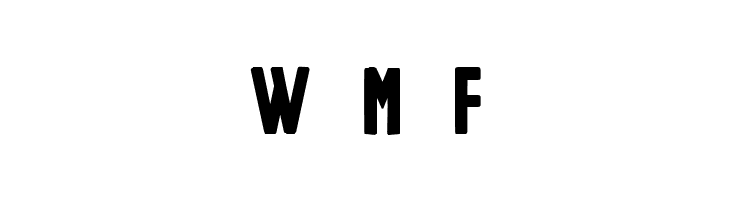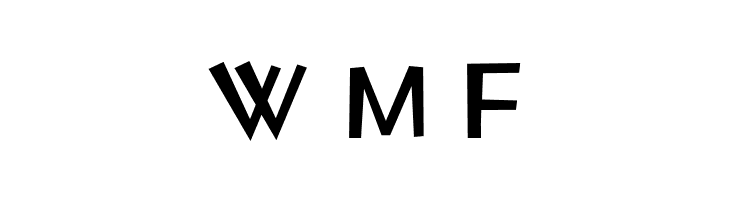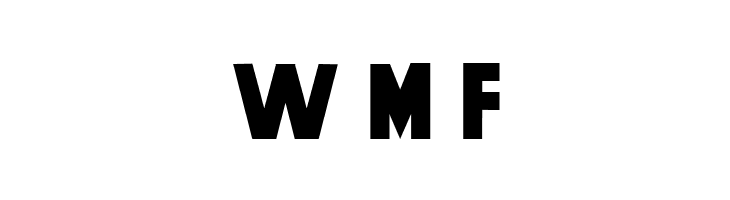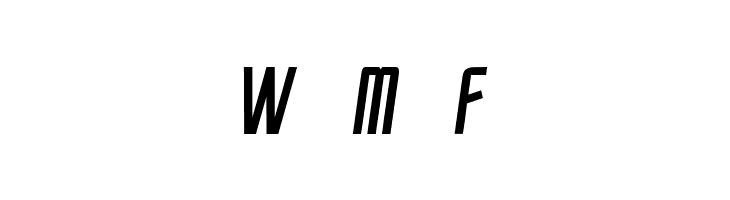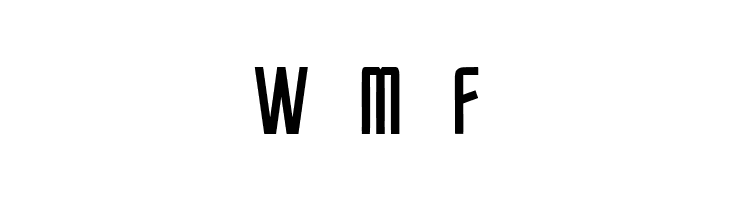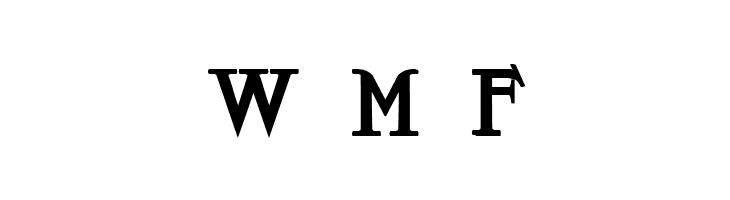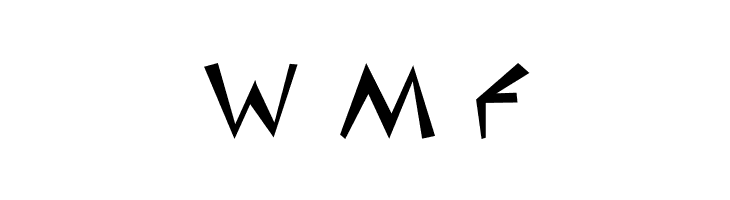
A bold, geometric font with a modern and strong aesthetic.
A bold, geometric font with sharp angles and a strong visual impact.
A bold, angular font with a futuristic and mechanical style.
A playful, geometric font with dot embellishments and thin strokes.
A playful, bold font with a hand-drawn, whimsical style.
A decorative and elegant font with classic flourishes.
A bold, 3D-effect font with a modern, commanding presence.
A bold, classic serif font with strong strokes and sharp serifs.
A bold, geometric font with angular shapes and a playful, dynamic style.
A bold, expressive handwritten font with dynamic strokes.
A whimsical and ornate font with mystical embellishments and dynamic contrast.
A whimsical and decorative font with playful swirls and curls.
A bold, modern font with thick, uniform strokes and a geometric style.
A bold serif font with high contrast and classic elegance.
A futuristic, italicized font with angular and dynamic letterforms.
A futuristic, angular font with bold, geometric letterforms.
A bold, cursive script font with dynamic strokes and fluid forms.
A bold, impactful font with thick strokes and a modern, commanding presence.
A bold, playful, and quirky decorative font with high contrast and artistic flair.
An elegant, cursive font with intricate loops and swirls.
A bold, playful handwritten font with dynamic, slanted characters.
A bold, high-contrast serif font with dramatic serifs and strong presence.
A bold, decorative font with a playful, mechanical design and three-dimensional effect.